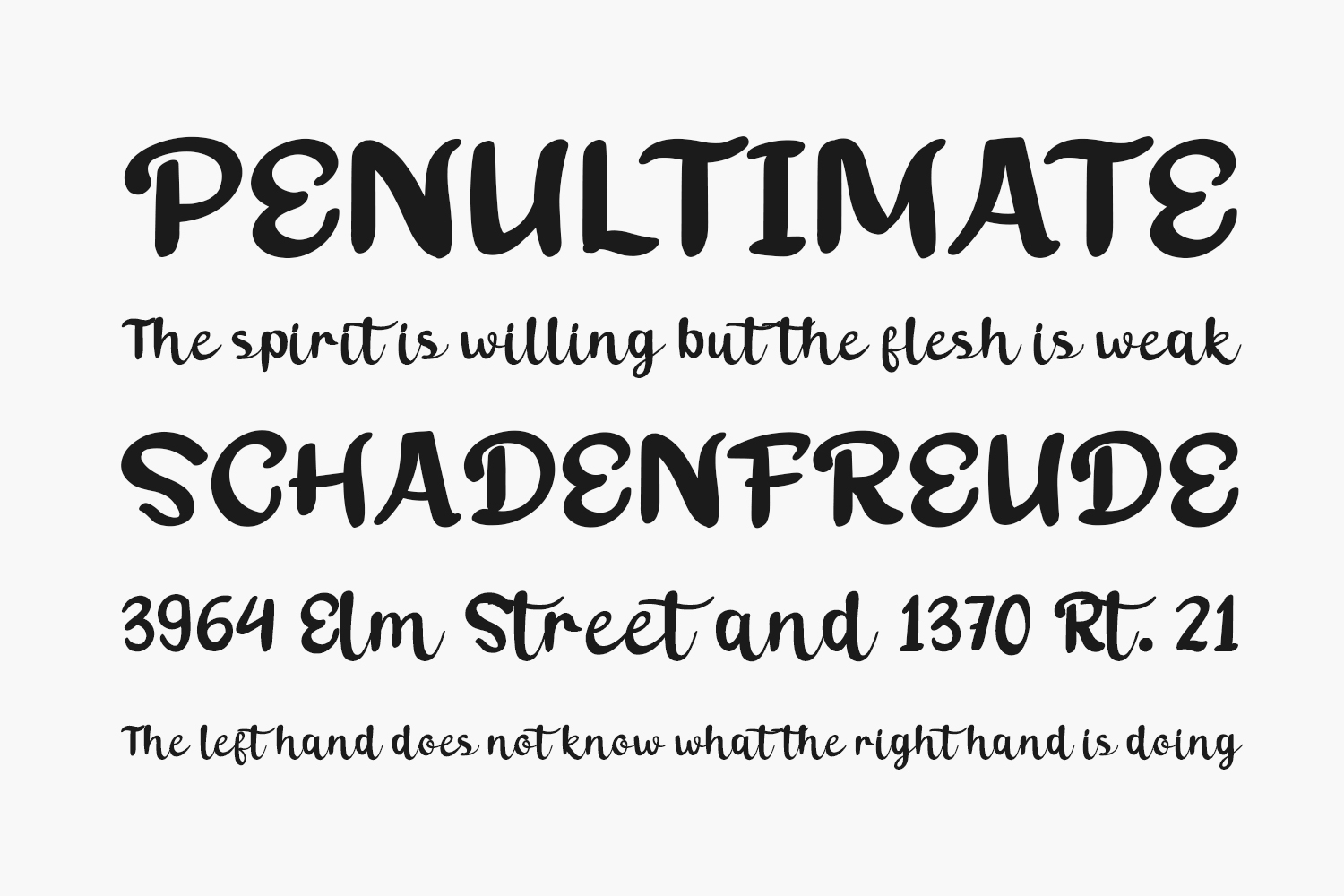
Bebast Free Font is a whimsical handwritten font. It features an incredibly classic style, while still keeping a friendly feel. It will elevate a wide range of design projects to the highest level, be it branding, headings, wedding designs, invitations, signatures, logos, labels, and much more. Bebast Free Font was designed by Twinletter and is free for personal use only. Please purchase the full version for commercial use.